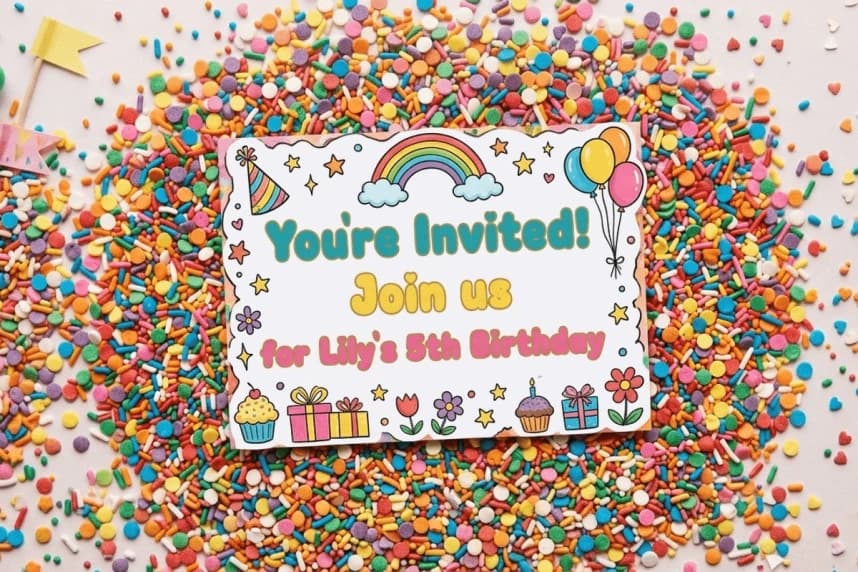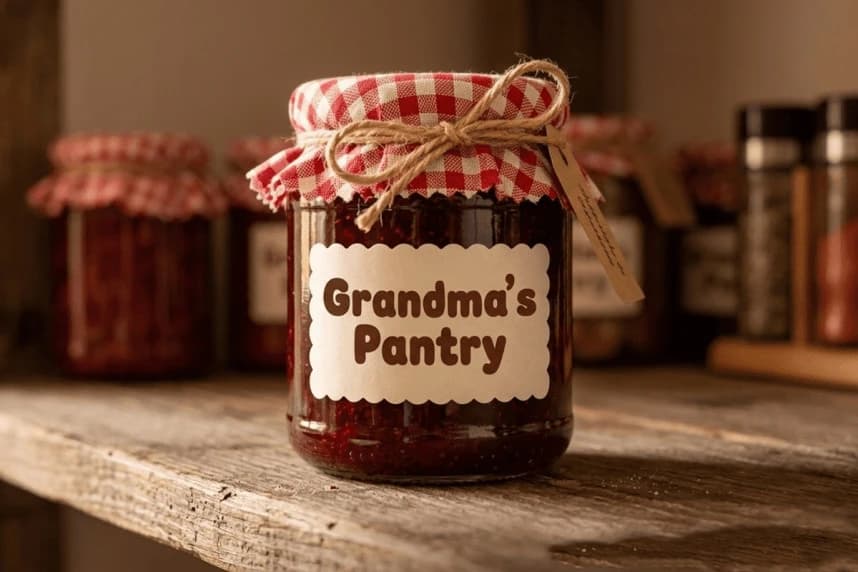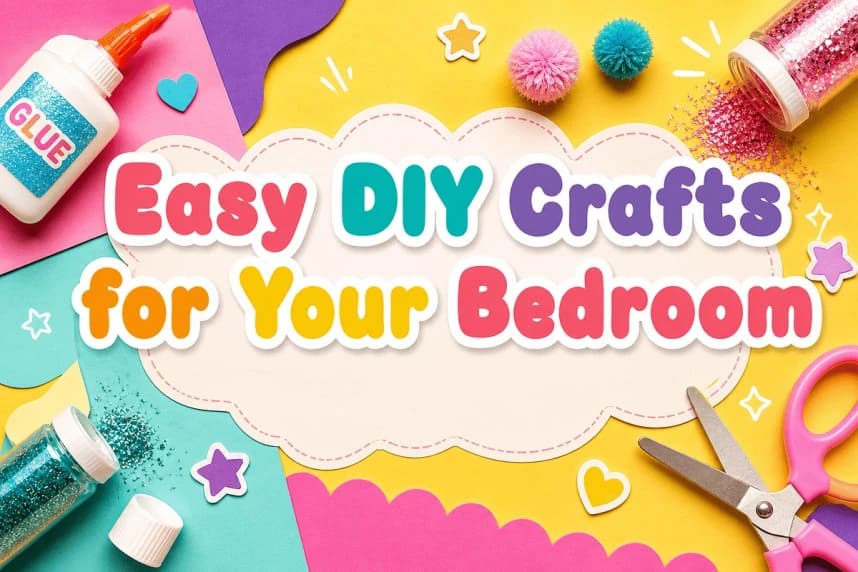
Gojiberry Quibble Font
Gojiberry Quibble Font is a chunky, rounded display font that brings instant joy to everything it touches. Whether you're designing a birthday party invitation, a children's book cover, a classroom poster, or a playful brand identity — this font does the heavy lifting with a smile.